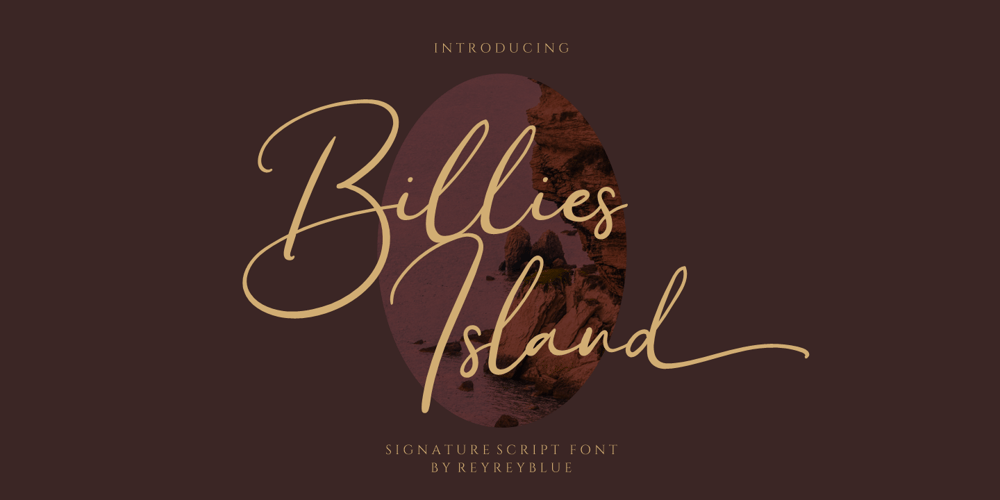
Billies Island Font Family was designed by Risca Anitawati and published by Reyrey Blue Std. Billies Island contains 1 styles and family package options. Billies Island is a stylish and modern handwritten font, every single letter has been carefully crafted to make your design looks great. This font is perfect for any purpose, such as logo design, branding design, packaging design, posters, fashion design, wedding invitations, watermarks, and more!Fall in love with its incredibly distinct and timeless style and use it to create spectacular designs!Features :· All Uppercase and Lowercase· Number & Symbol· Supported Languages· Alternates and Ligatures· PUA Encoded